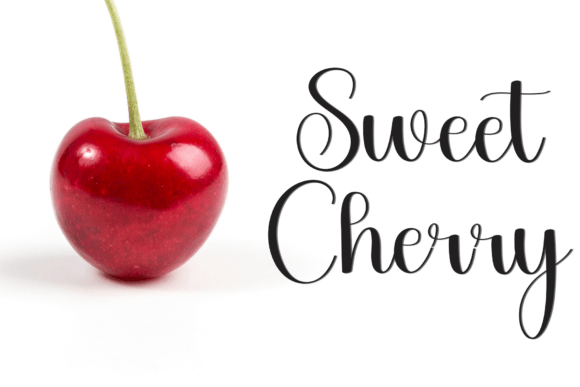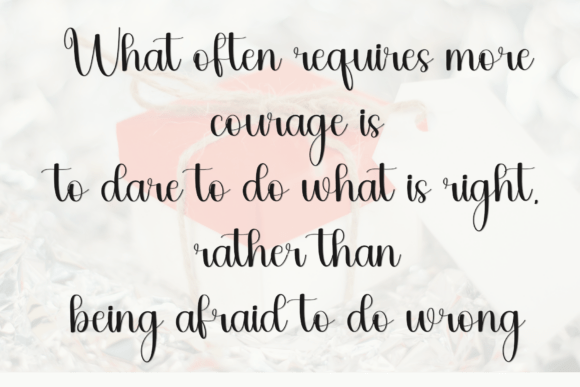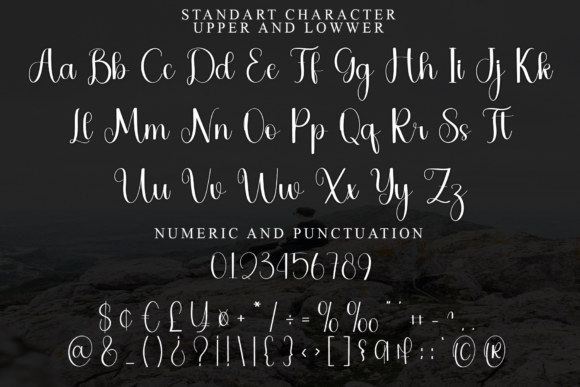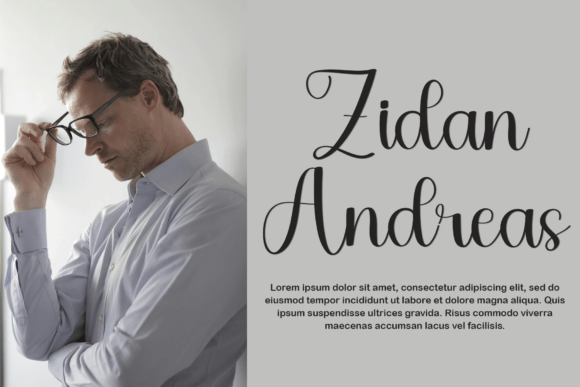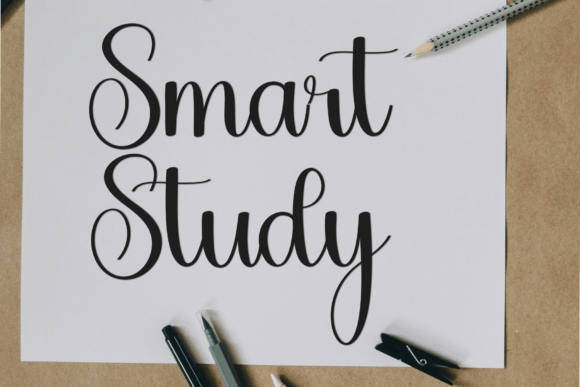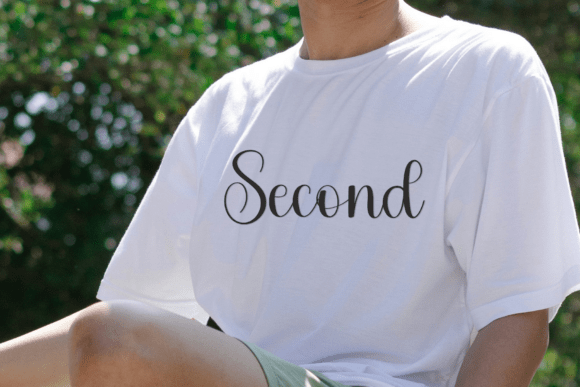
Easter Holiday Font: Elevate Your Designs with Elegance and Charm
As the Easter holiday approaches, designers and crafters are on the lookout for the perfect font to add a touch of sophistication and whimsy to their creations. Look no further than the Easter Holiday Font, a stylish handwritten script font that exudes elegance and charm with its fluid, graceful strokes.
A Font that Embodies Elegance and Charm
The Easter Holiday Font is a beautiful, handcrafted script font that is perfect for adding a personal and sophisticated touch to any design. Its smooth curves and natural flow create a timeless, refined look that is sure to impress. Whether you’re working on branding, invitations, stationery, or any other design project, this font is sure to elevate your work to the next level.
Key Features of Easter Holiday Font
- Fluid, Graceful Strokes: The Easter Holiday Font features fluid, graceful strokes that give it a natural, handwritten feel.
- Elegant and Charming: The font’s elegant and charming design makes it perfect for adding a touch of sophistication to any design.
- Smooth Curves and Natural Flow: The font’s smooth curves and natural flow create a timeless, refined look that is sure to impress.
- Perfect for Branding, Invitations, and Stationery: The Easter Holiday Font is perfect for adding a personal and sophisticated touch to branding, invitations, stationery, and more.
Uses for Easter Holiday Font
The Easter Holiday Font is a versatile font that can be used for a wide range of design projects, including:
- Branding: Use the Easter Holiday Font to add a touch of elegance and sophistication to your brand’s logo, packaging, and marketing materials.
- Invitations: Create beautiful, eye-catching invitations for Easter events, parties, and celebrations with the Easter Holiday Font.
- Stationery: Add a personal and sophisticated touch to your stationery, including greeting cards, thank-you cards, and more.
- Digital Designs: Use the Easter Holiday Font to create stunning digital designs, including social media graphics, blog posts, and more.
Why Choose Easter Holiday Font?
There are many reasons why designers and crafters should choose the Easter Holiday Font for their design projects. Here are just a few:
- Unique and Eye-Catching: The Easter Holiday Font is a unique and eye-catching font that is sure to make your designs stand out.
- Elegant and Sophisticated: The font’s elegant and sophisticated design makes it perfect for adding a touch of refinement to any design.
- Easy to Read: The Easter Holiday Font is easy to read, making it perfect for use in a wide range of design projects.
- Versatile: The font is versatile and can be used for a wide range of design projects, from branding and invitations to stationery and digital designs.
Tips for Using Easter Holiday Font
Here are a few tips for using the Easter Holiday Font in your design projects:
- Use it as a Headline Font: The Easter Holiday Font is perfect for use as a headline font, adding a touch of elegance and sophistication to your designs.
- Pair it with Other Fonts: The Easter Holiday Font pairs well with other fonts, making it easy to create visually appealing designs.
- Experiment with Colors: The Easter Holiday Font looks great in a wide range of colors, so don’t be afraid to experiment and find the perfect color for your design.
The Easter Holiday Font is a beautiful, stylish handwritten script font that is perfect for adding a touch of elegance and charm to any design. With its fluid, graceful strokes, smooth curves, and natural flow, it’s sure to elevate your designs to the next level. Whether you’re a designer or crafter, the Easter Holiday Font is a must-have for any Easter-themed design project.